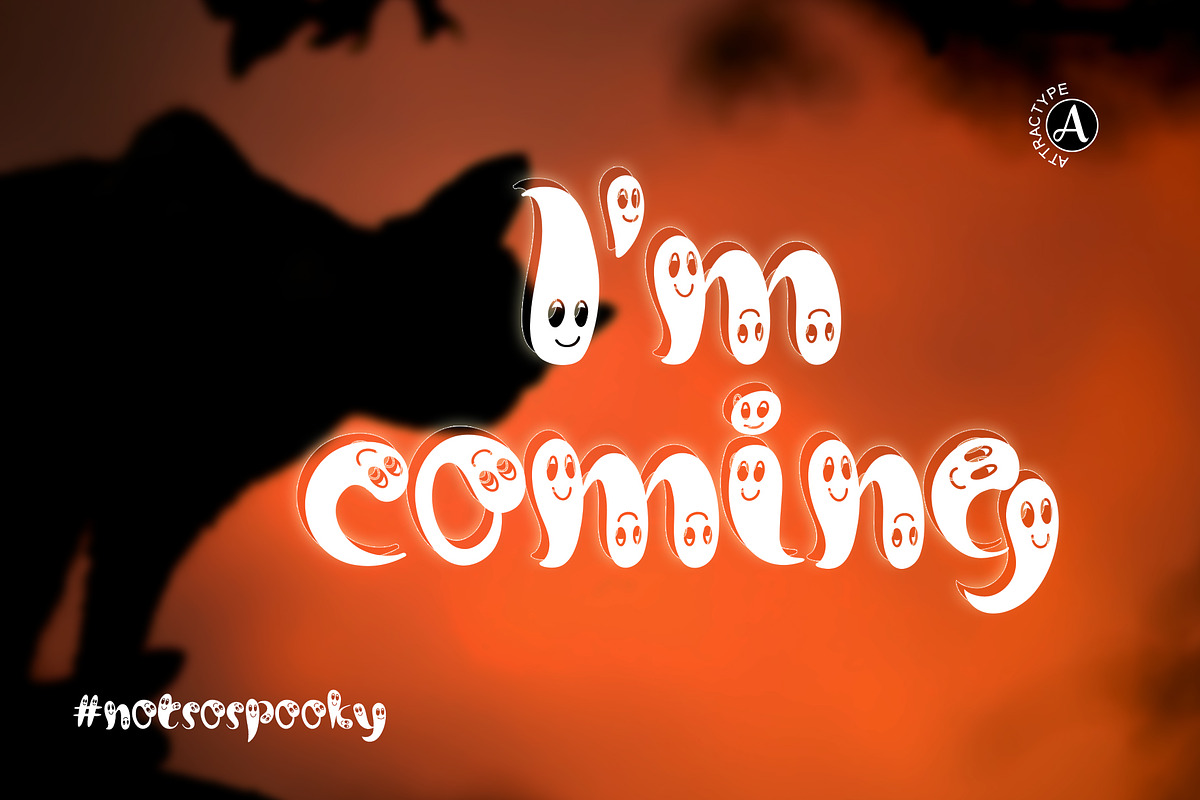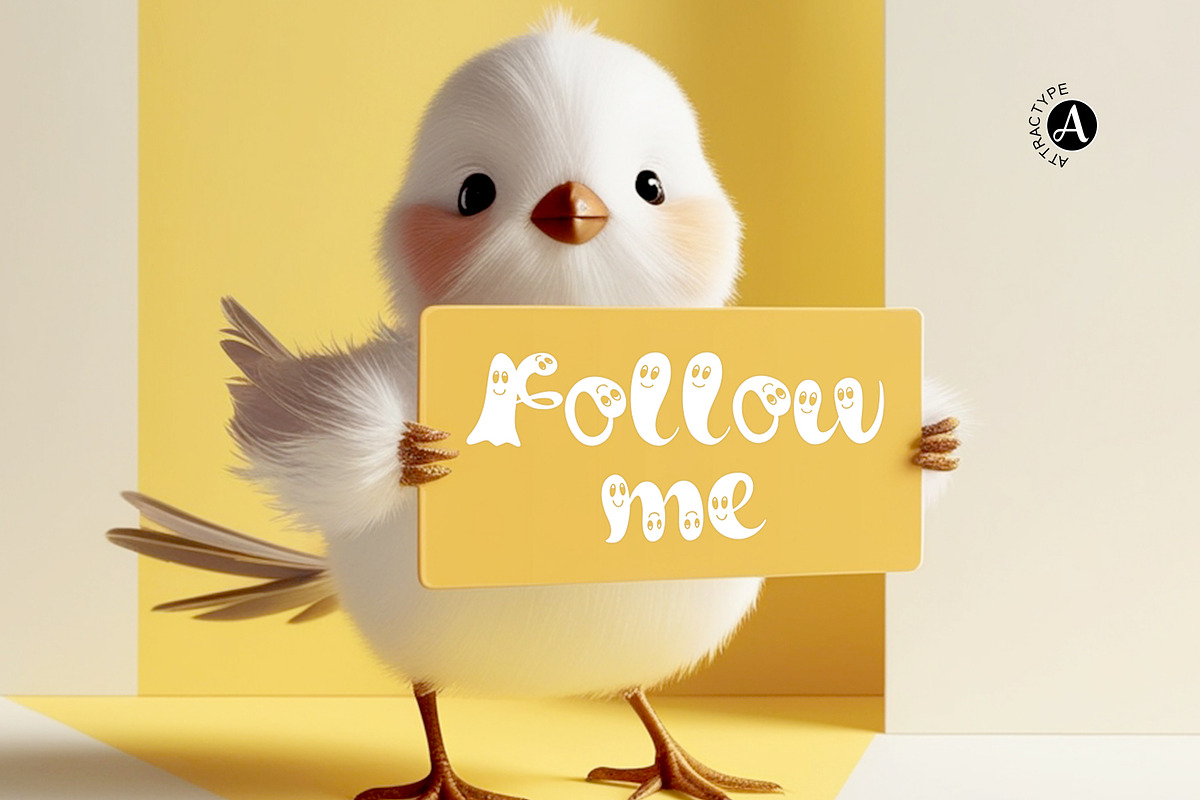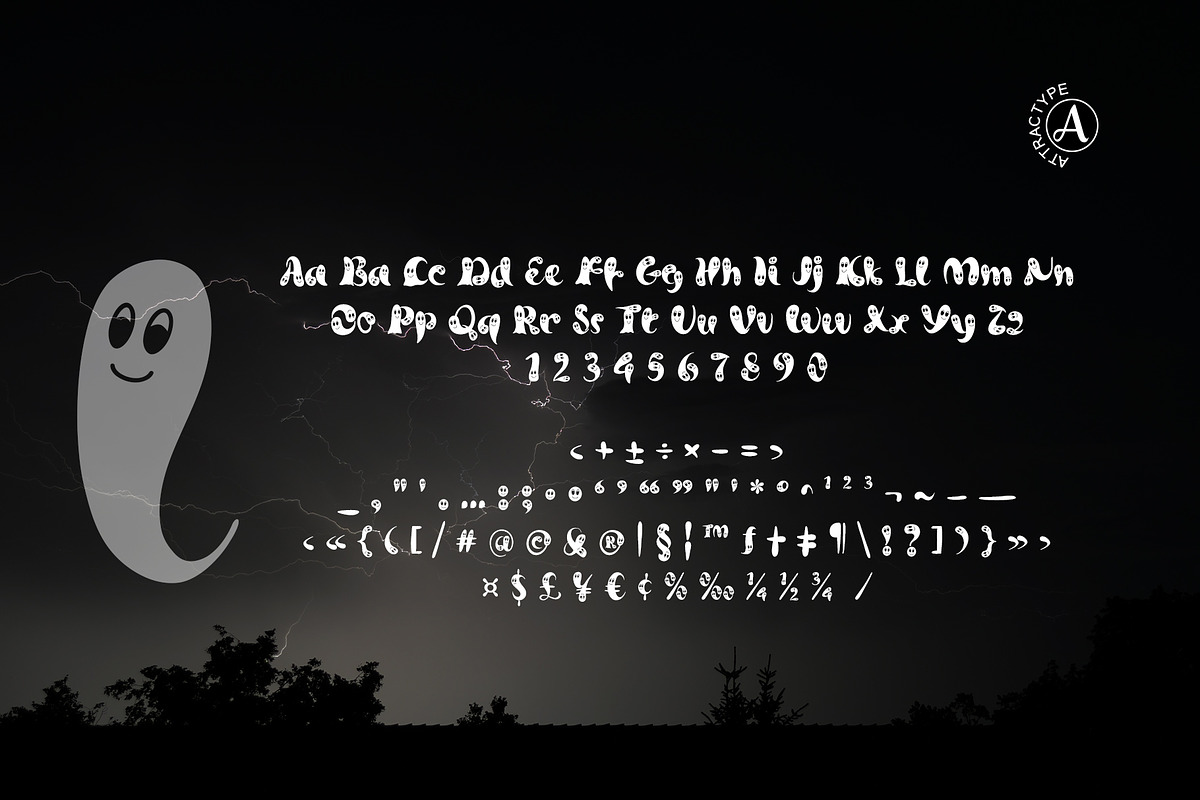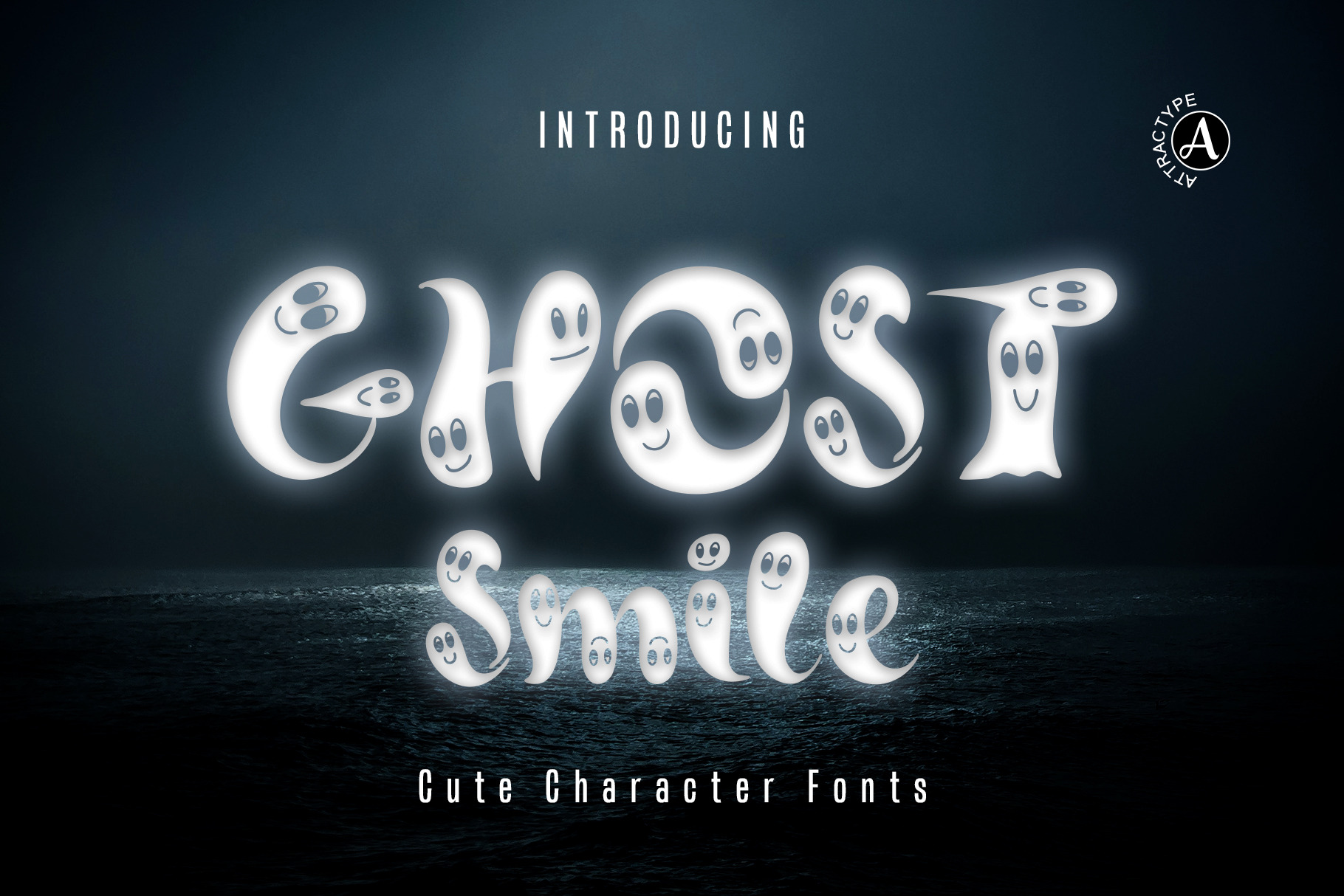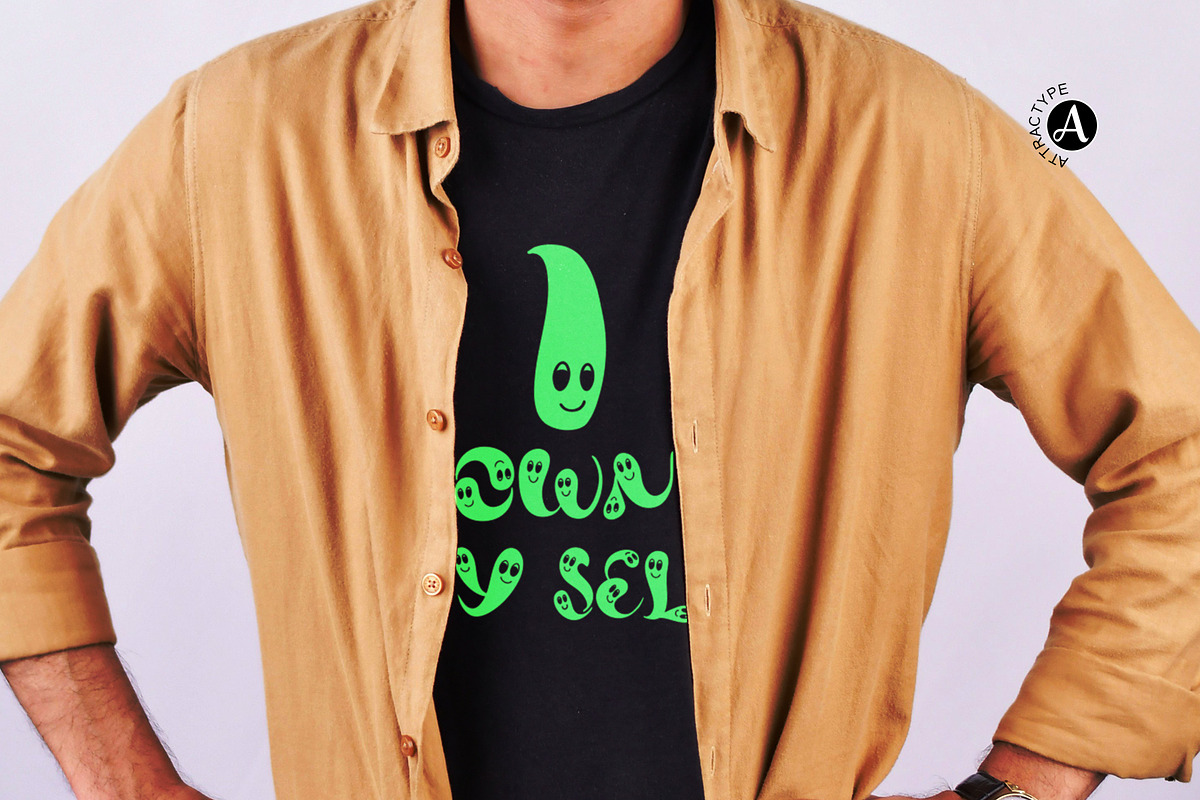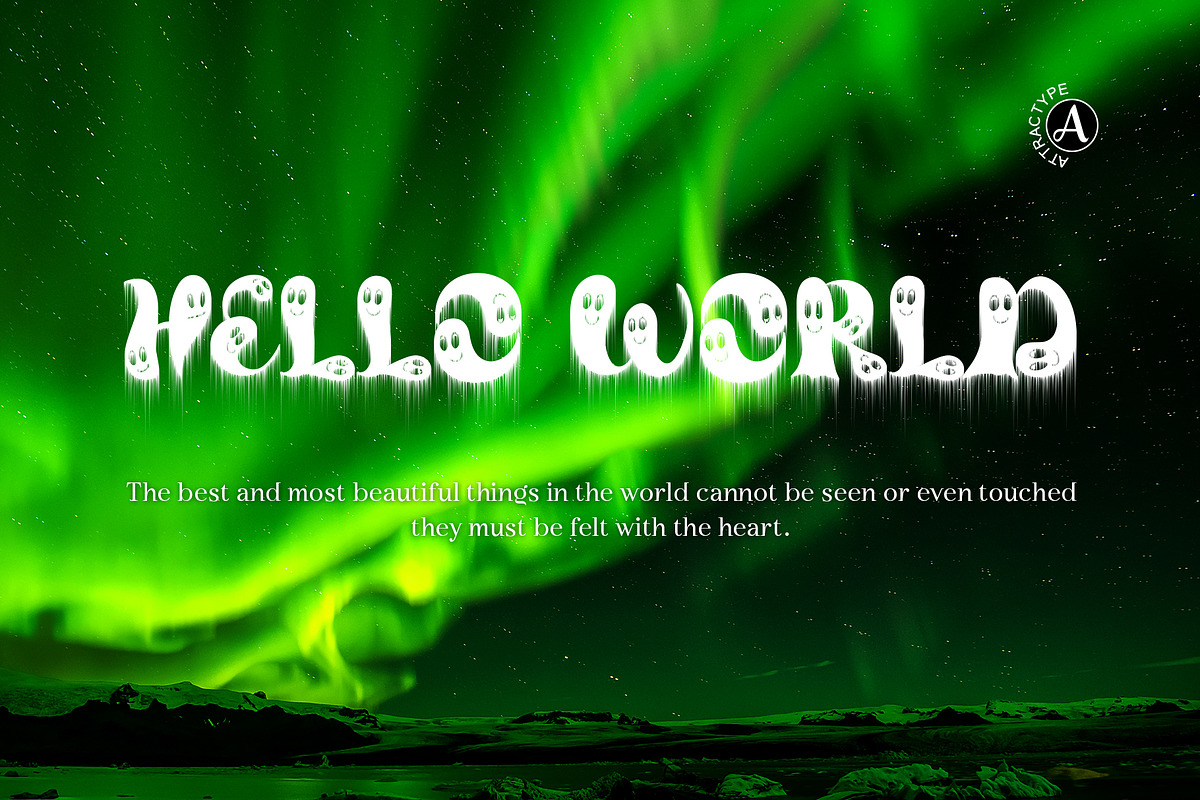
Ghost Smile - Cute Font
The cute ghosts that are the characters of the letters in this font will make your design eye-catching, you can combine it with other font styles, give your favorite effects, and smile, it's fun.
This font contains uppercase letters, lowercase letters and general punctuation.